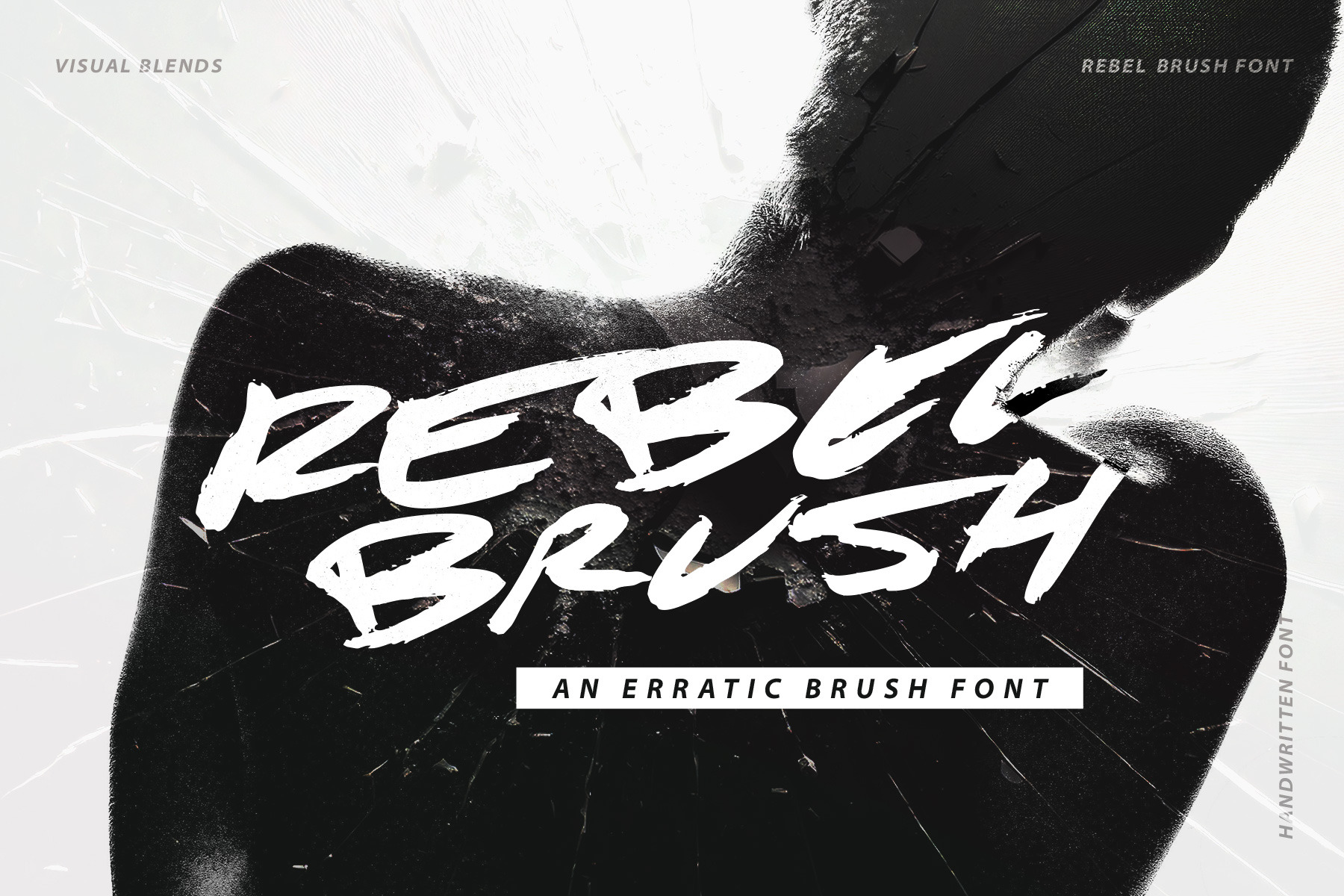
Rebel Brush - Handwritten Font
Introducing Rebel Brush an erratic handwritten brush font. In a world of AI and digital design, join the movement to bring back hand crafted design. Be a Rebel.
This typeface was created using real handwritten lettering to give a distressed and imperfect aesthetic to any design. Utilize upper and lower case to access alternate characters that make text feel more unique.
Rebel Brush Font- 2 Sets of Alternate Characters.